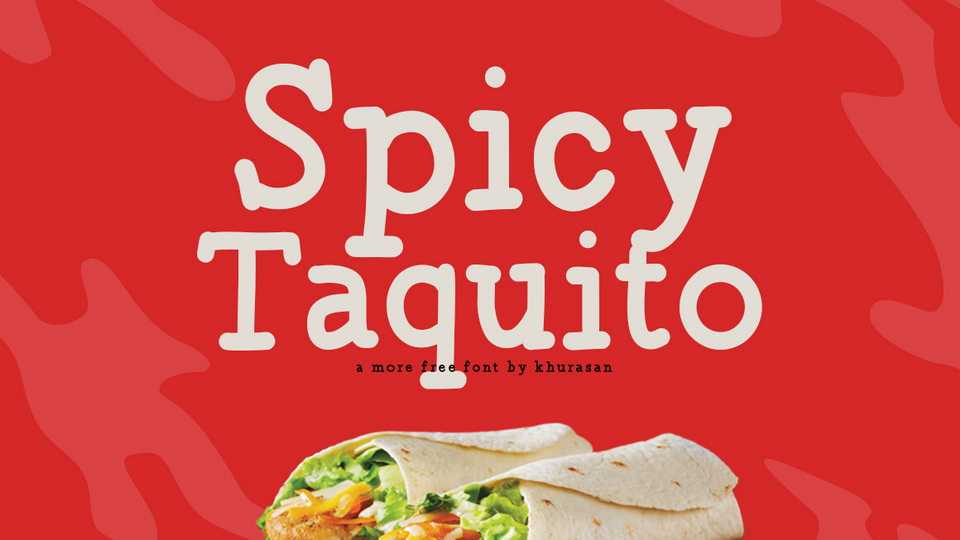
Download Spicy Taquito font, a charming hand-drawn serif typeface that brings a delightful touch of playfulness and character to your designs. Spicy Taquito font features a unique and expressive design, with each letter exuding a sense of carefree movement.